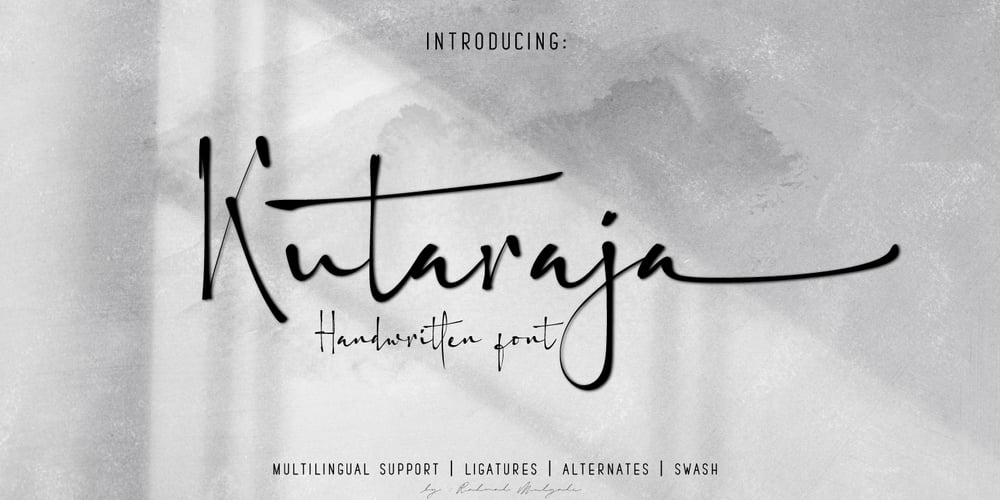
Kutaraja
Kutaraja font
Kutaraja Font Family was designed by Rahmad Mulyadi and published by BaronWNM. Kutaraja contains 2 styles and family package options. Kutaraja is a hand-drawn script font that gives a natural-looking impression that is perfect for those of you who want to use script-style fonts, very suitable for writing product labels, printing t-shirts, greeting cards, invitation cards, etc. Kutaraja family has 2 choice models, namely regular and italic. both have several ligatures, alternate, swash at the beginning and end of lowercase letters to give a sweet touch to the written word or sentence.